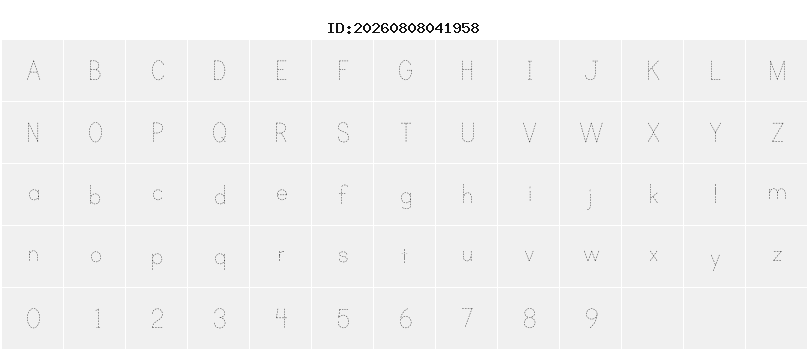
• Font Name: Print Dashed
Print Dashed.ttf is a modern, elegant sans-serif font designed for ultimate readability and visual harmony. Perfect for branding, headlines, web design, and print materials.